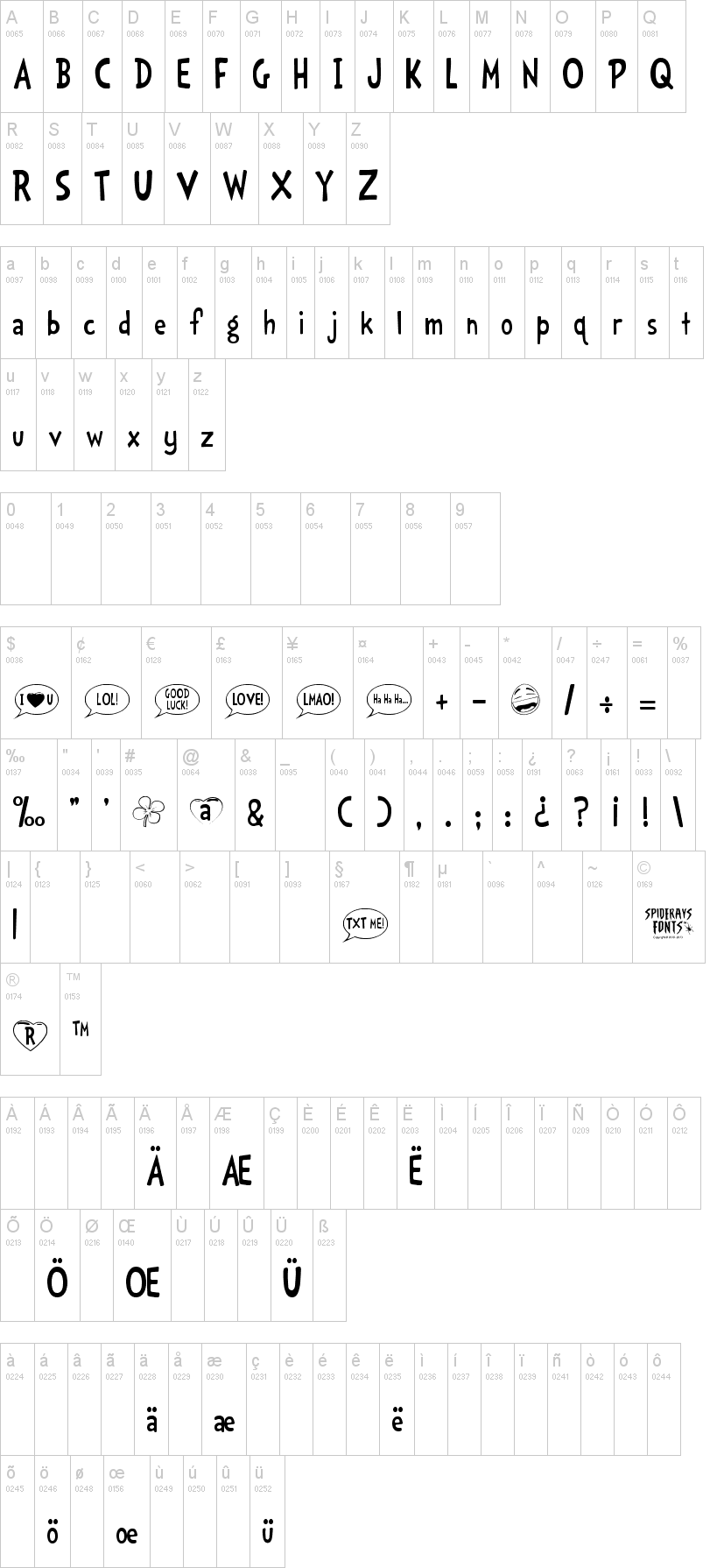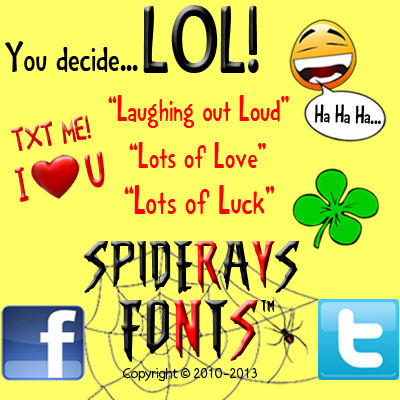
Шрифт LOL!
Not much of a SMS TXT message sender myself however I kept putting LOL at the end of my TXT messages and on facebook to say Lots of Love then a friend told me that the first use of the shortened LOL in text slang actually meant Laugh(ing) out Loud. When I created the comic type font this was on my mind so hence the name I guess it's up to you might need Lots of Luck to decide! Sorry there are no numbers at the moment LOL!